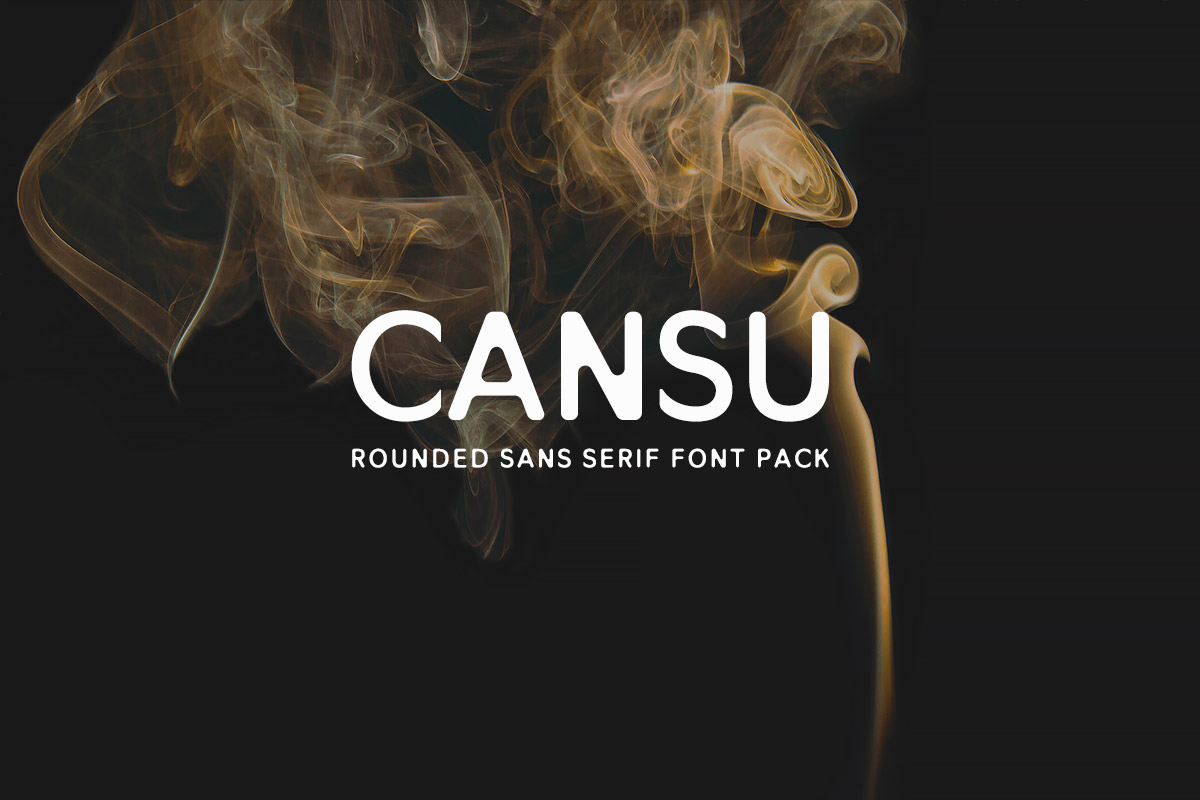
Cansu Sans Serif Font Pack
Cansu Sans Serif Font Pack is a classy minimal rounded sans serif typeface. It contains uppercase, lowercase and numbers characters. You can buy commercial licenses on our store Creative Finest.
Cansu will be perfect for packaging, presentations, logo, headlines, lettering, posters, branding, quotes, titles, magazines headings, web layouts, advertising, invitations, packaging design, books, and nearly any creative design.